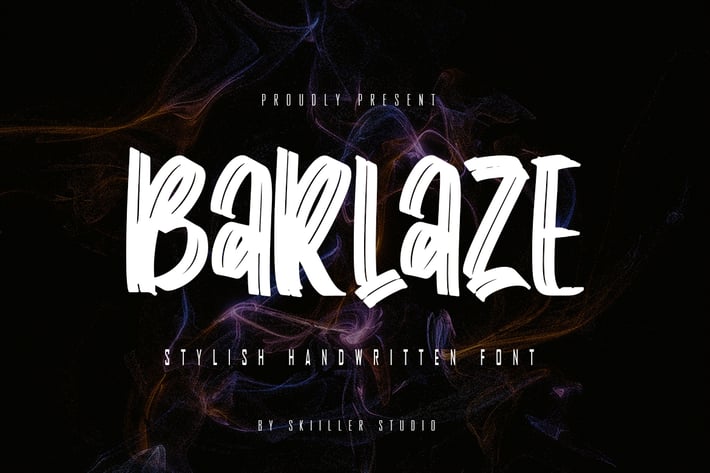
Barlaze - Stylish Handwritten Font
Barlaze was inspired by the handwritten of natural brushes. Written in quick motion using a brush pen, it's a bit dry and looks realistic. It is suitable for commercial needs or magazine fashion design, offer logos, product packaging, headlines, posters, merchandise, social media & other greeting cards.